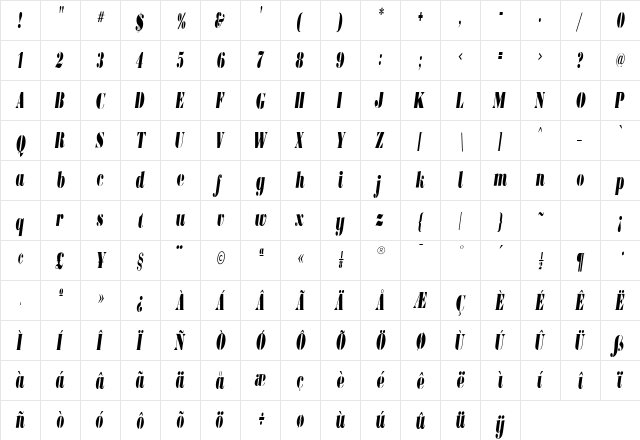
BodoniFLFCond-Ultra UltraItalic Font Preview
Design Context for BodoniFLFCond-Ultra Typeface
BodoniFLFCond-Ultra takes a measured approach to typography — its balanced proportions and neutral character make it a reliable workhorse for both digital and print work. The dynamic lean of this cut emphasises speed and emphasis in any layout. The condensed width makes it efficient for tight spaces without sacrificing legibility.
Pro Tip: Try BodoniFLFCond-Ultra for annotation and caption copy alongside an upright companion — the contrast in angle creates a dynamic but ordered typographic system.